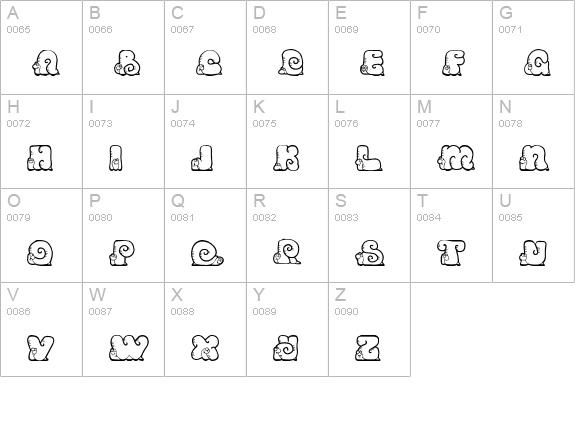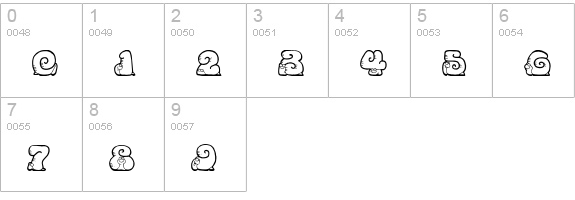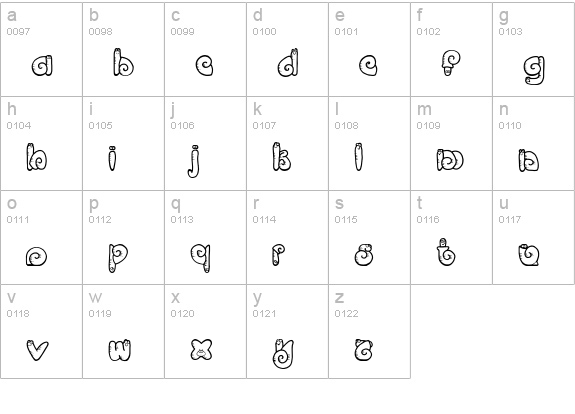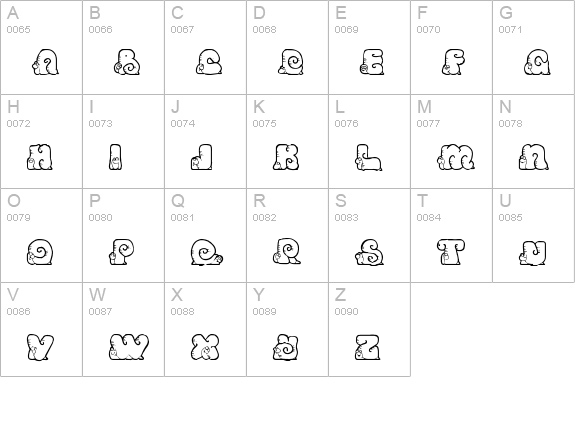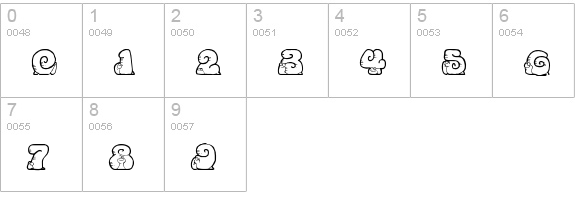
CK Snail Font Details
Introducing CK Snail font, a whimsical and charming typeface that adds a touch of playfulness to any design project. With its unique curling serifs and quirky letterforms, CK Snail brings a sense of fun and creativity to your text. This delightful font is perfect for a variety of uses, from invitations and greeting cards to branding and packaging. Its versatility makes it a great choice for both digital and print projects. Best of all, CK Snail font is available for free download at FontsMarket.com. So go ahead and add a touch of whimsy to your designs with this delightful typeface today!